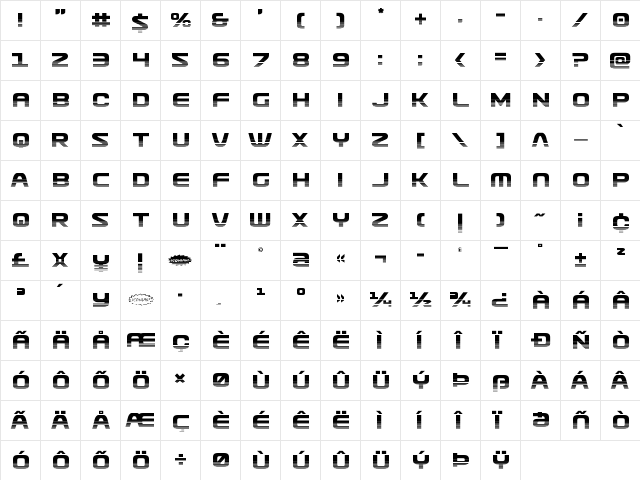
Usuzi Halftone Regular
Design Context for Usuzi Halftone Typeface
Usuzi Halftone is a composed and adaptable typeface that performs quietly and consistently across a wide range of design contexts.